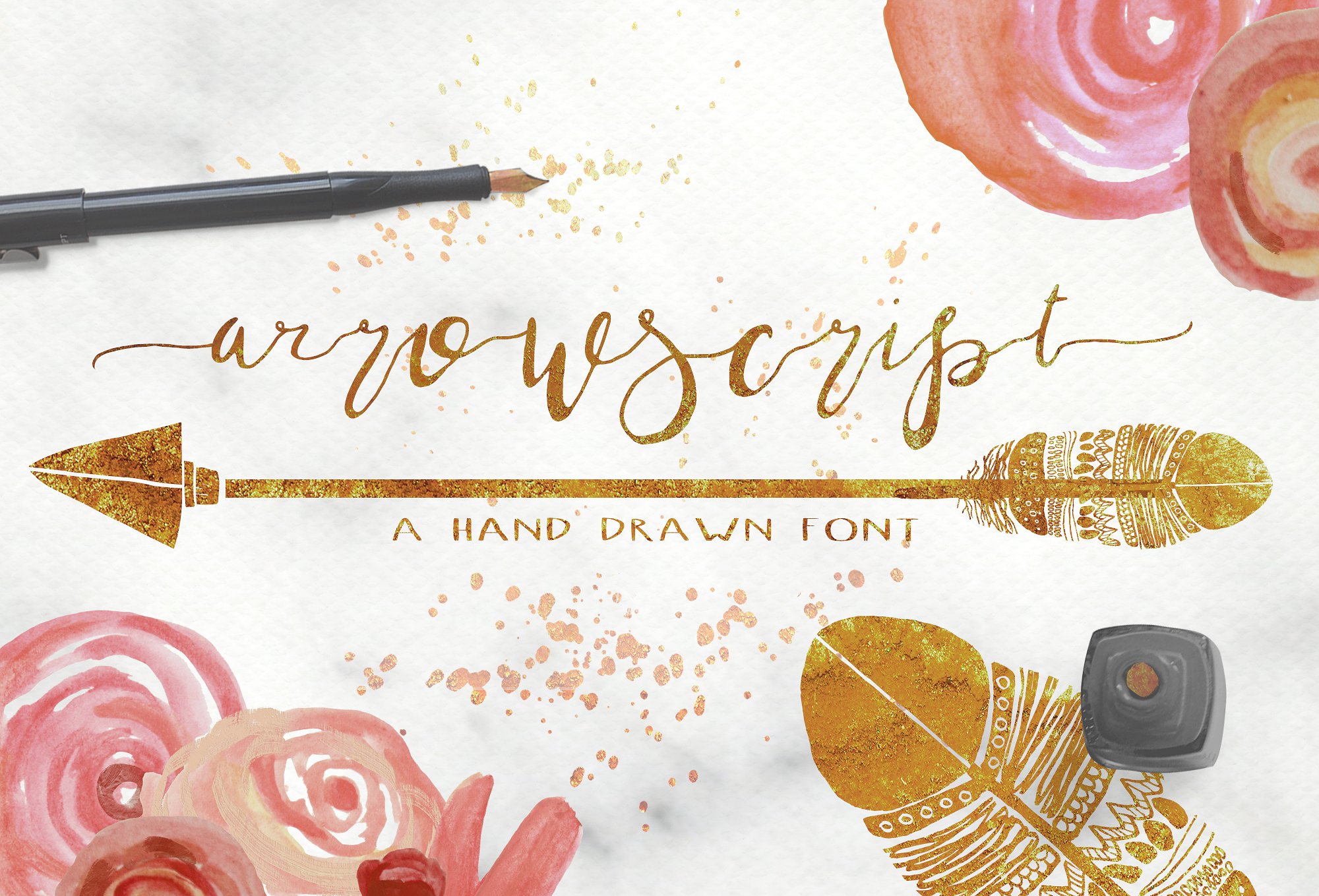
Arrow Script Font
ArrowScript was lovingly designed to be a natural, loose cursive, mimicking my own writing style. It’s a stunning, elegant font designed to be “imperfectly perfect.” It has alternates for each letter, along with stylish swashes and hand drawn characters to make your projects look hand scripted.